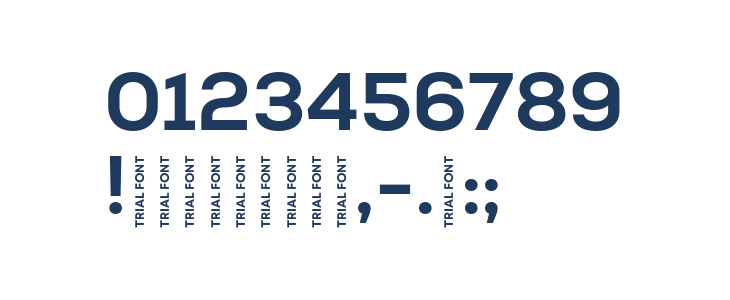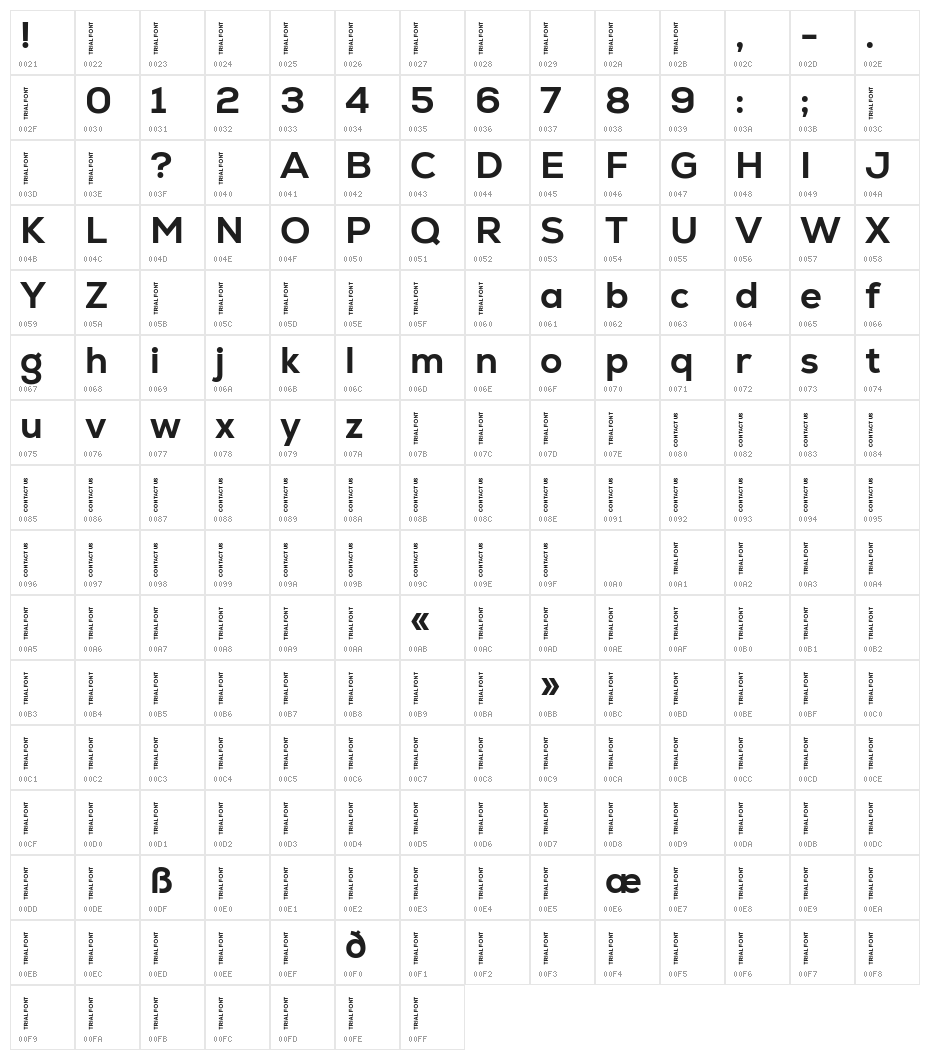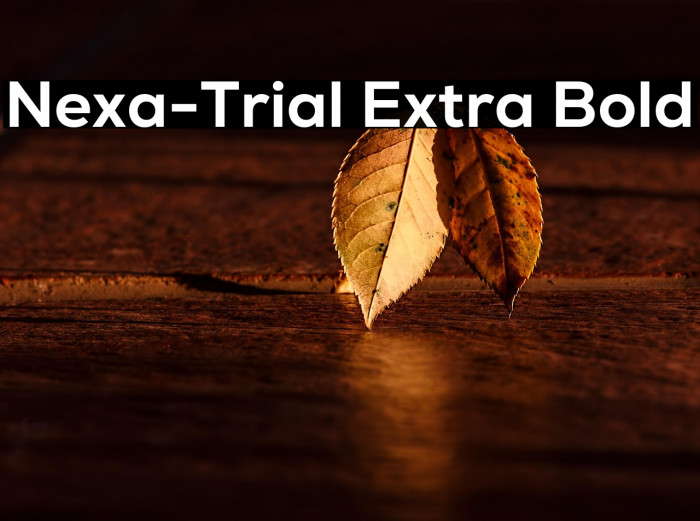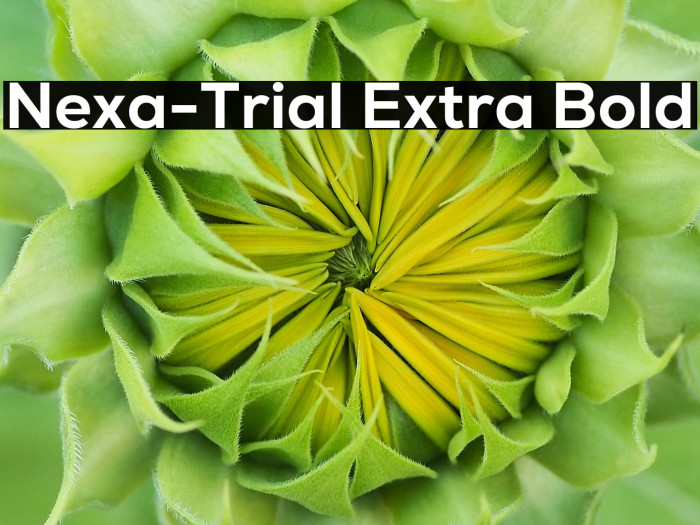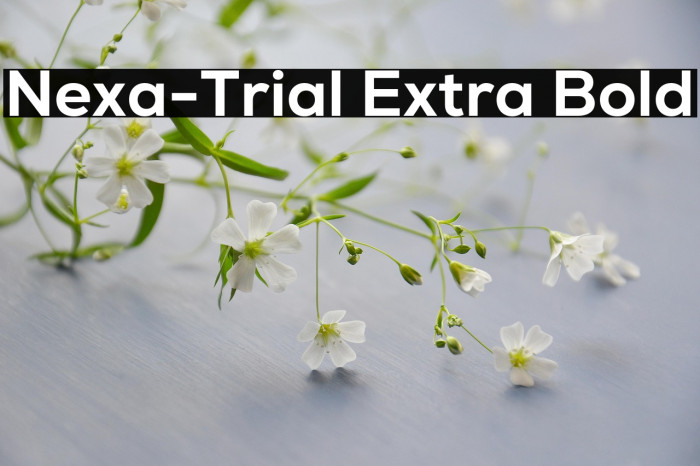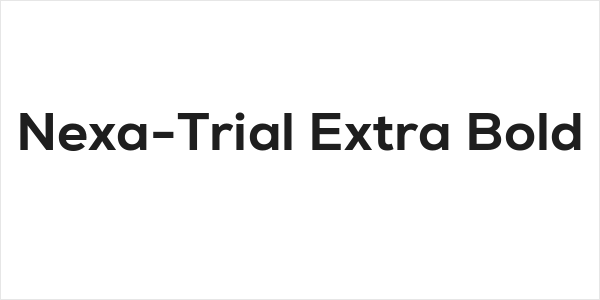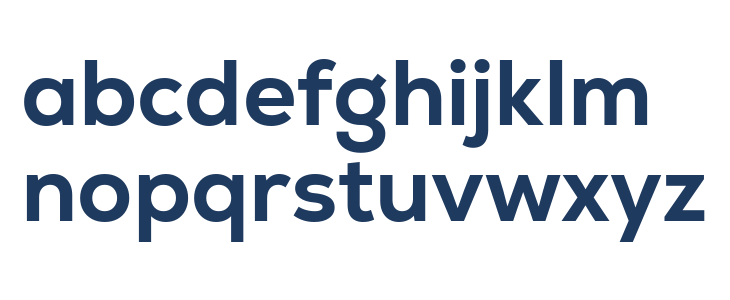
Nexa-Trial Extra Bold Font
Nexa-Trial Extra Bold Description
This font features a clean and modern sans-serif design with a bold and confident appearance. The characters are well-balanced with consistent stroke widths, contributing to a strong visual impact. The uppercase and lowercase letters are designed with a geometric precision, making them highly legible. The numerals are clear and distinct, ensuring readability in various contexts. Special characters are also included, maintaining the font's cohesive style. The overall look is sleek and professional, suitable for a wide range of applications.
| Proposed Projects | Ideal for branding, advertising, headlines, and digital media projects where a strong, modern presence is desired. |